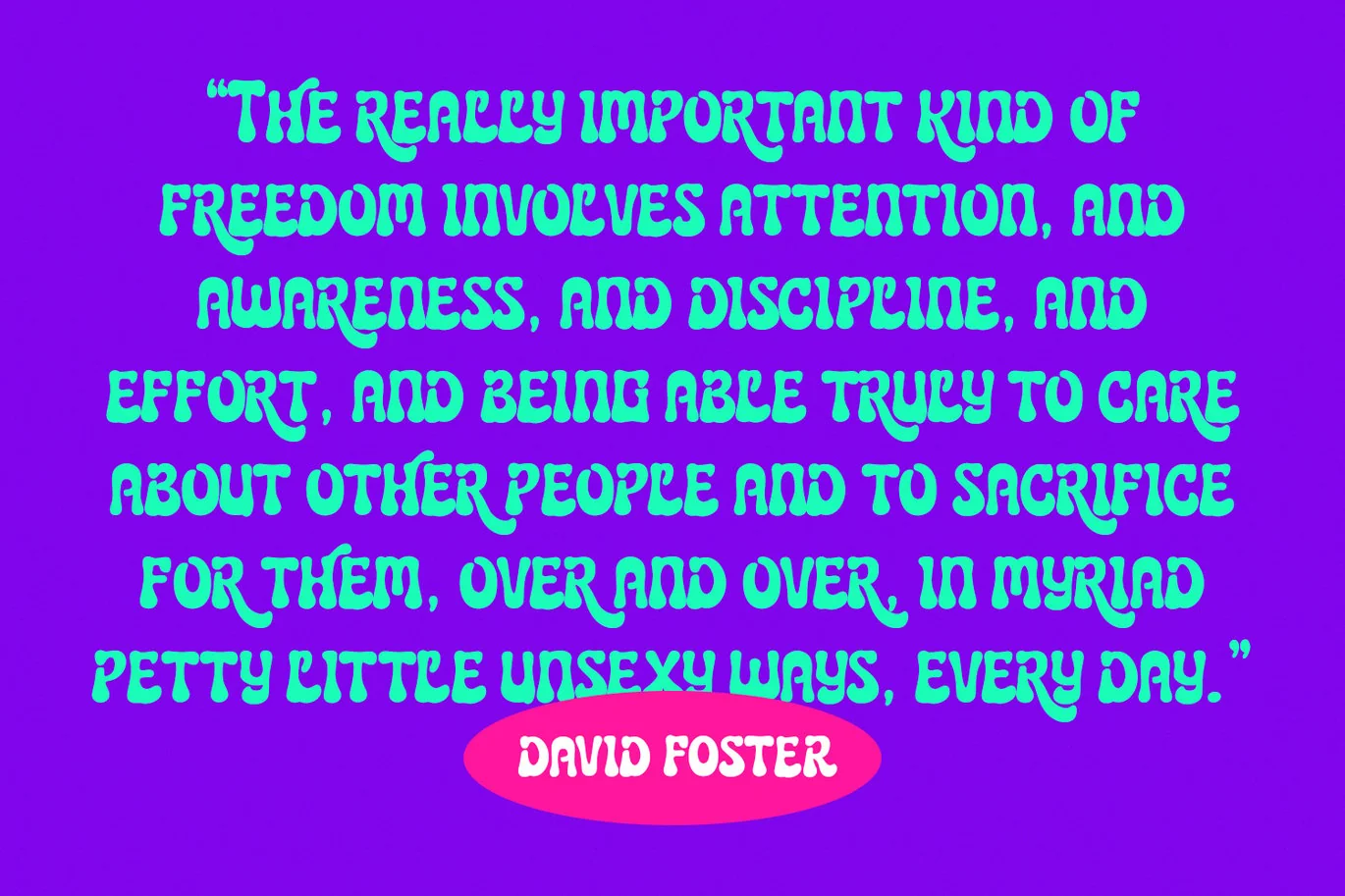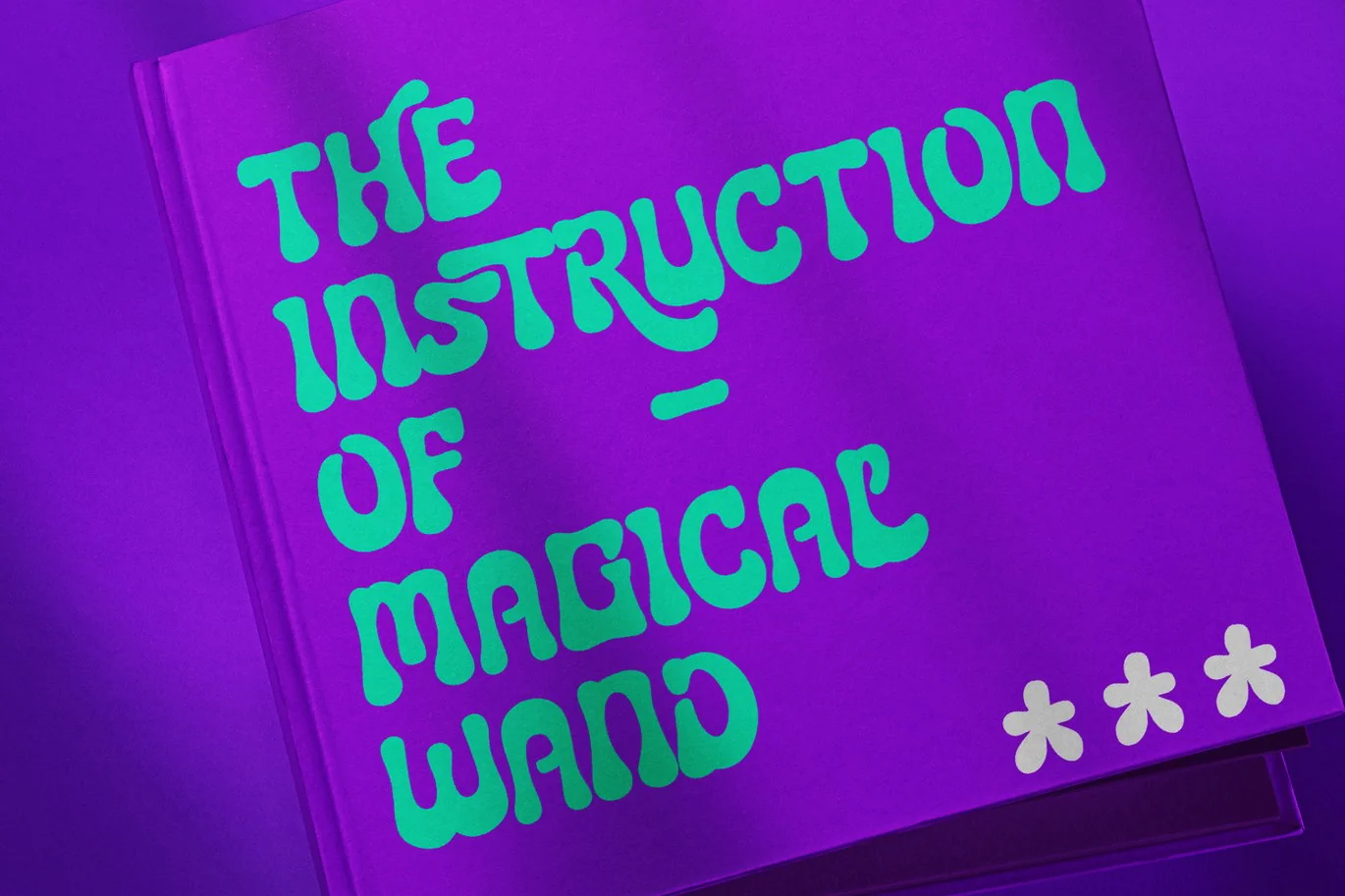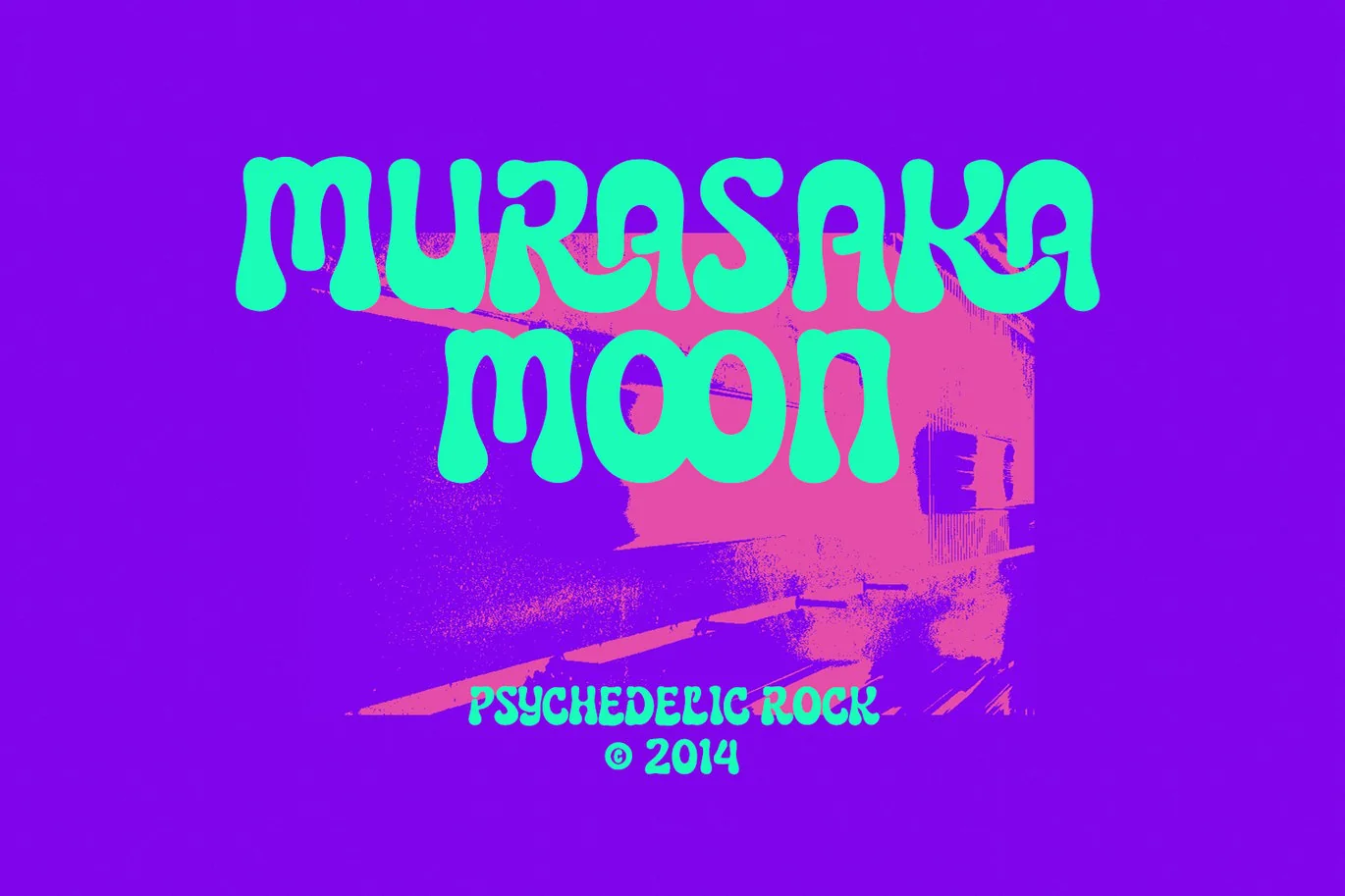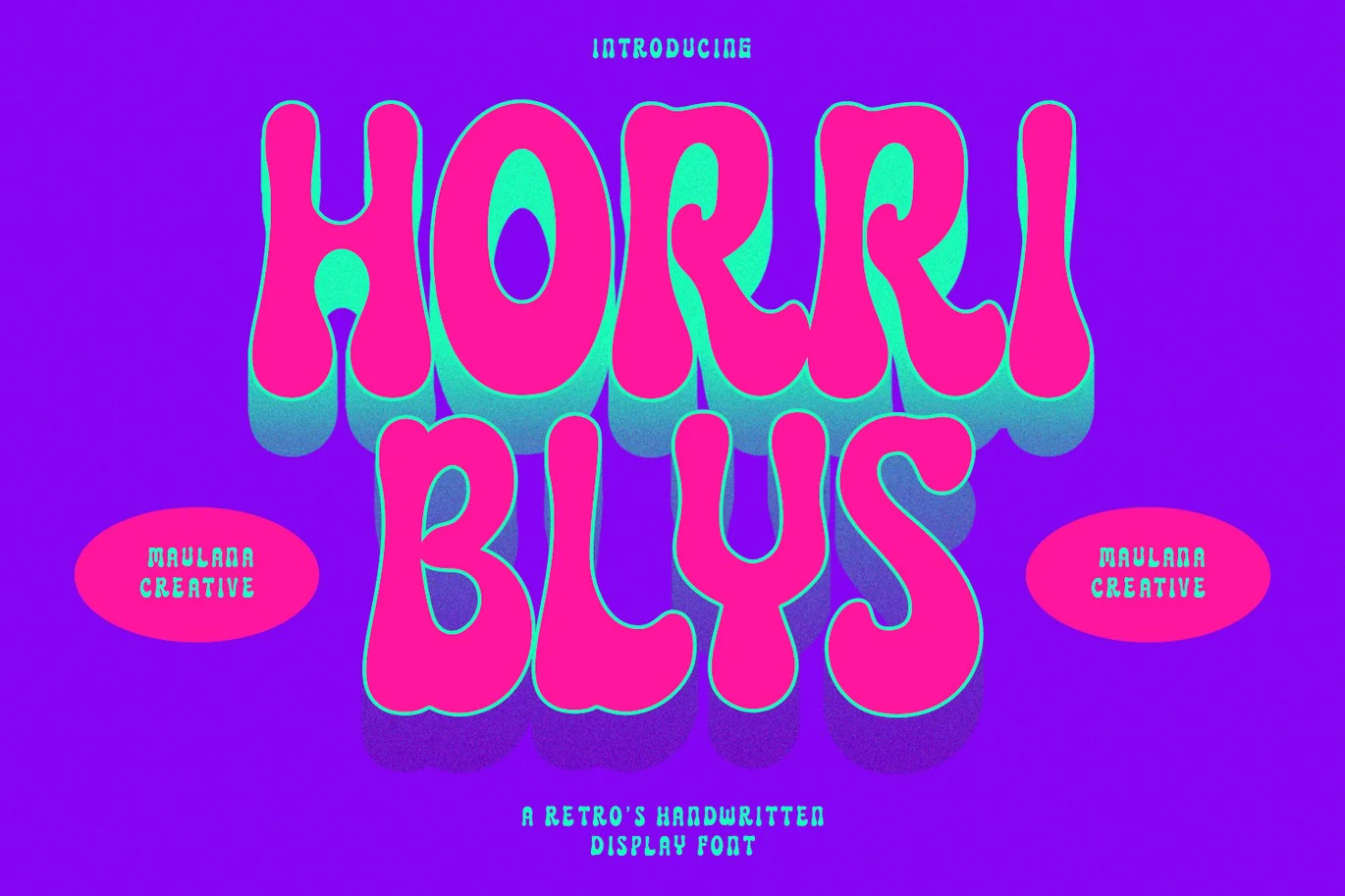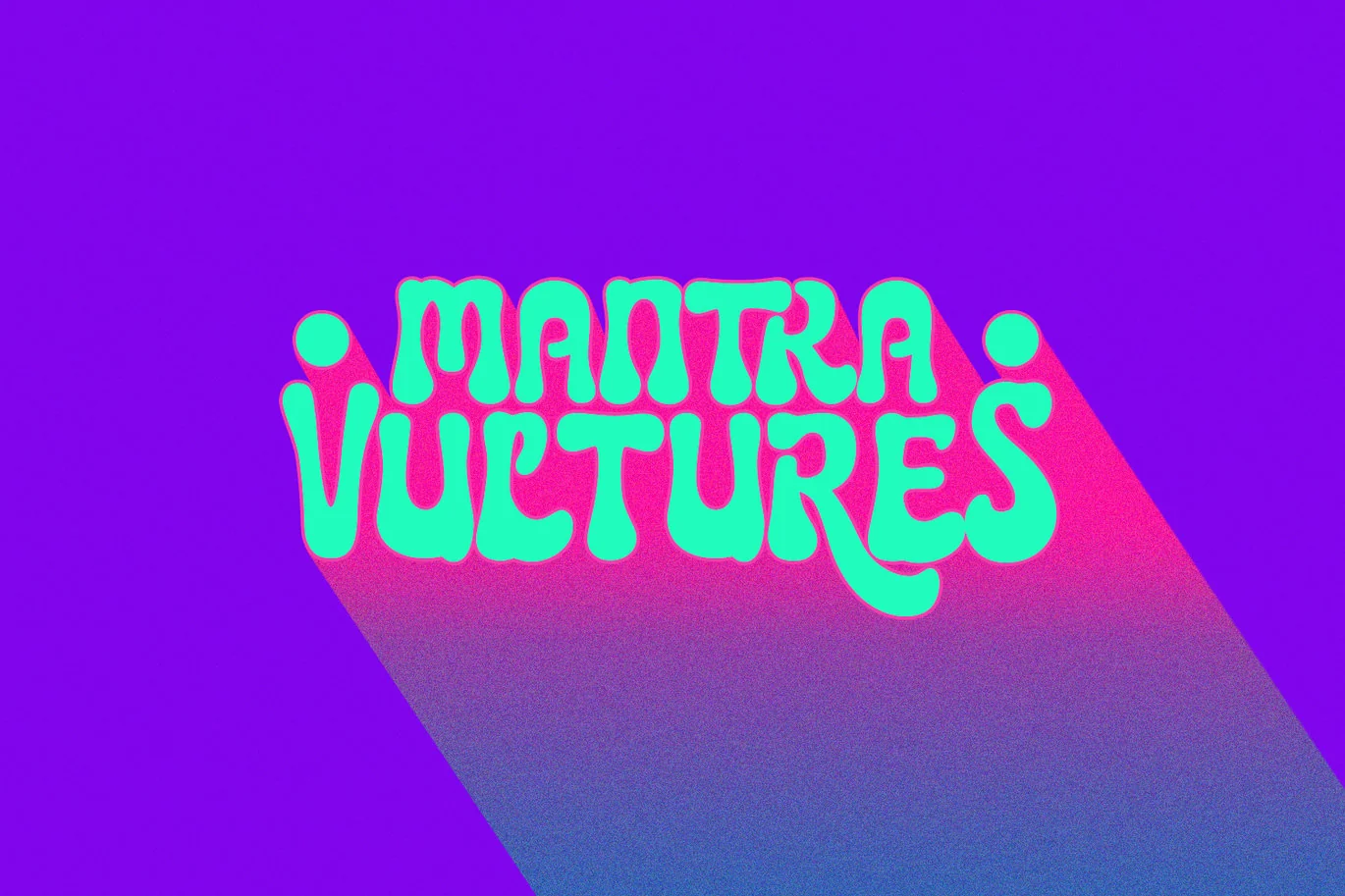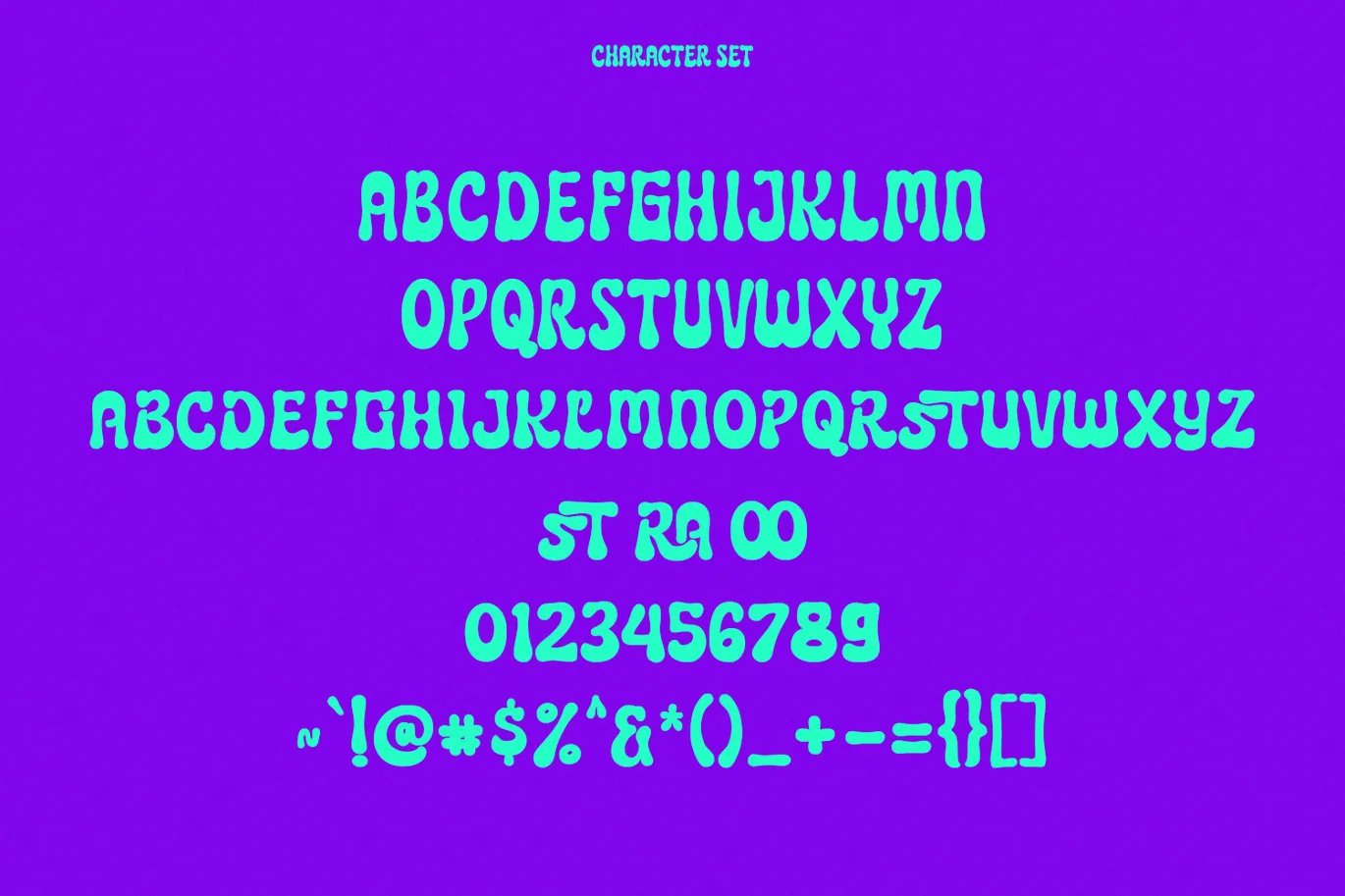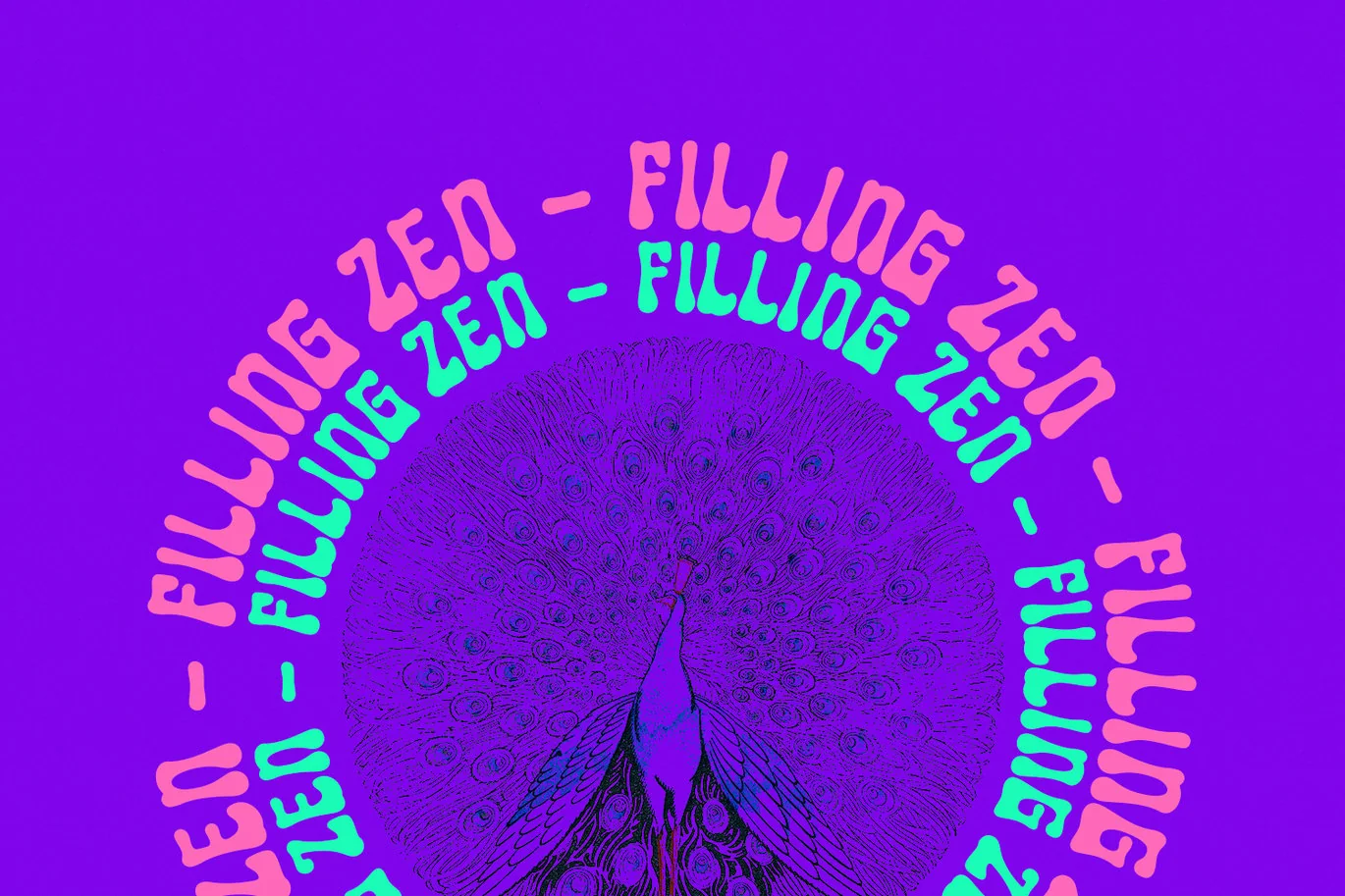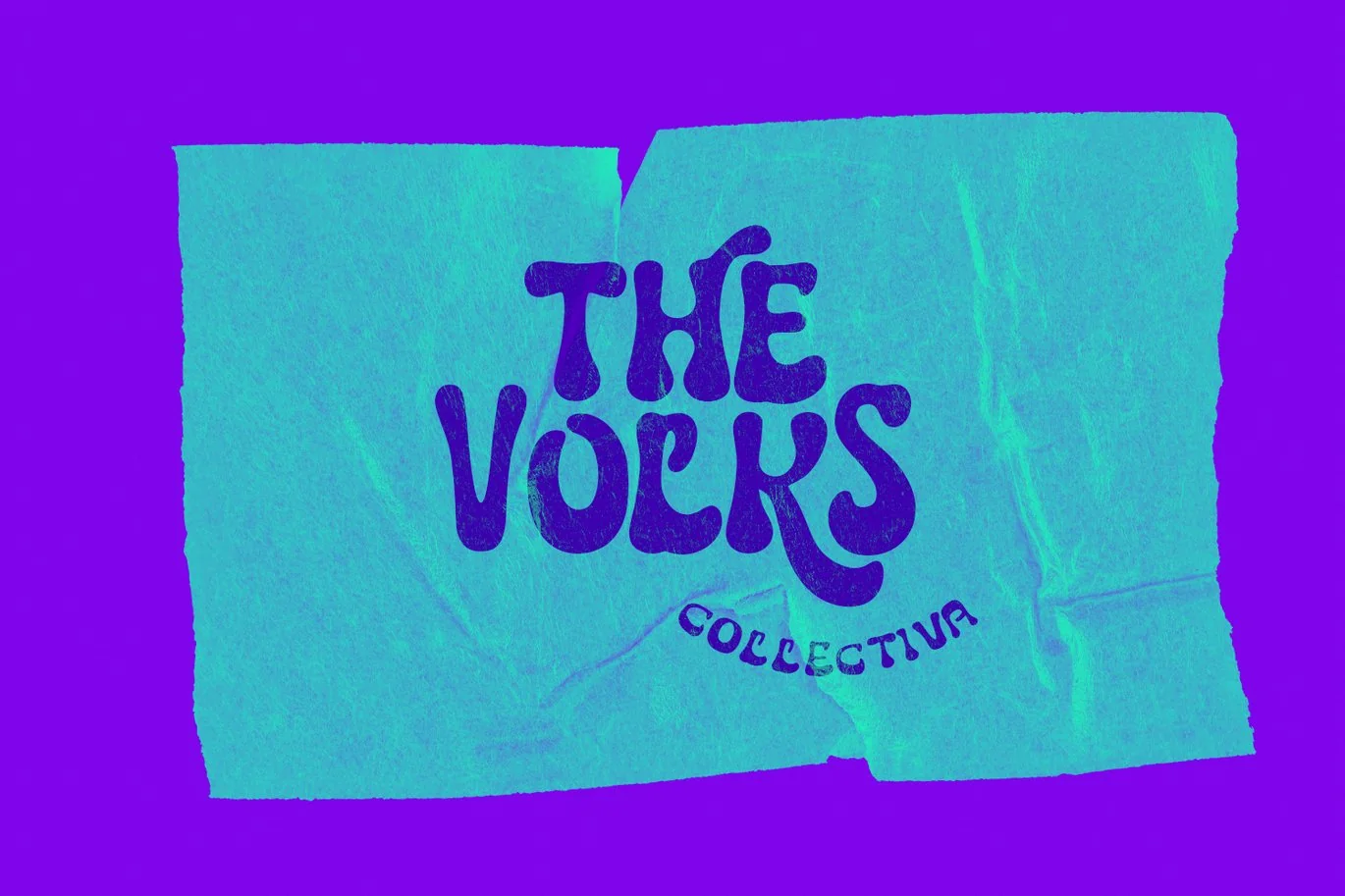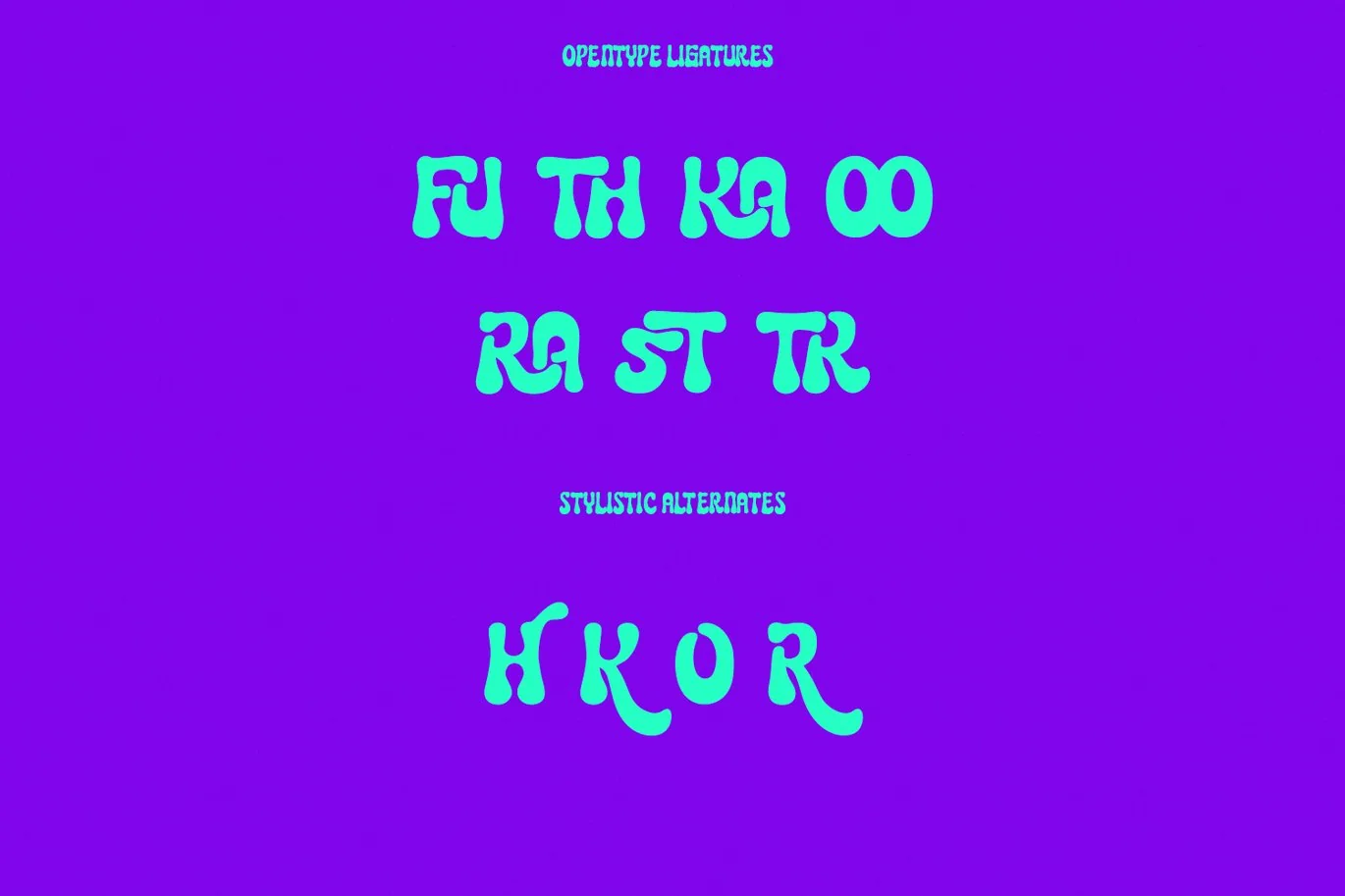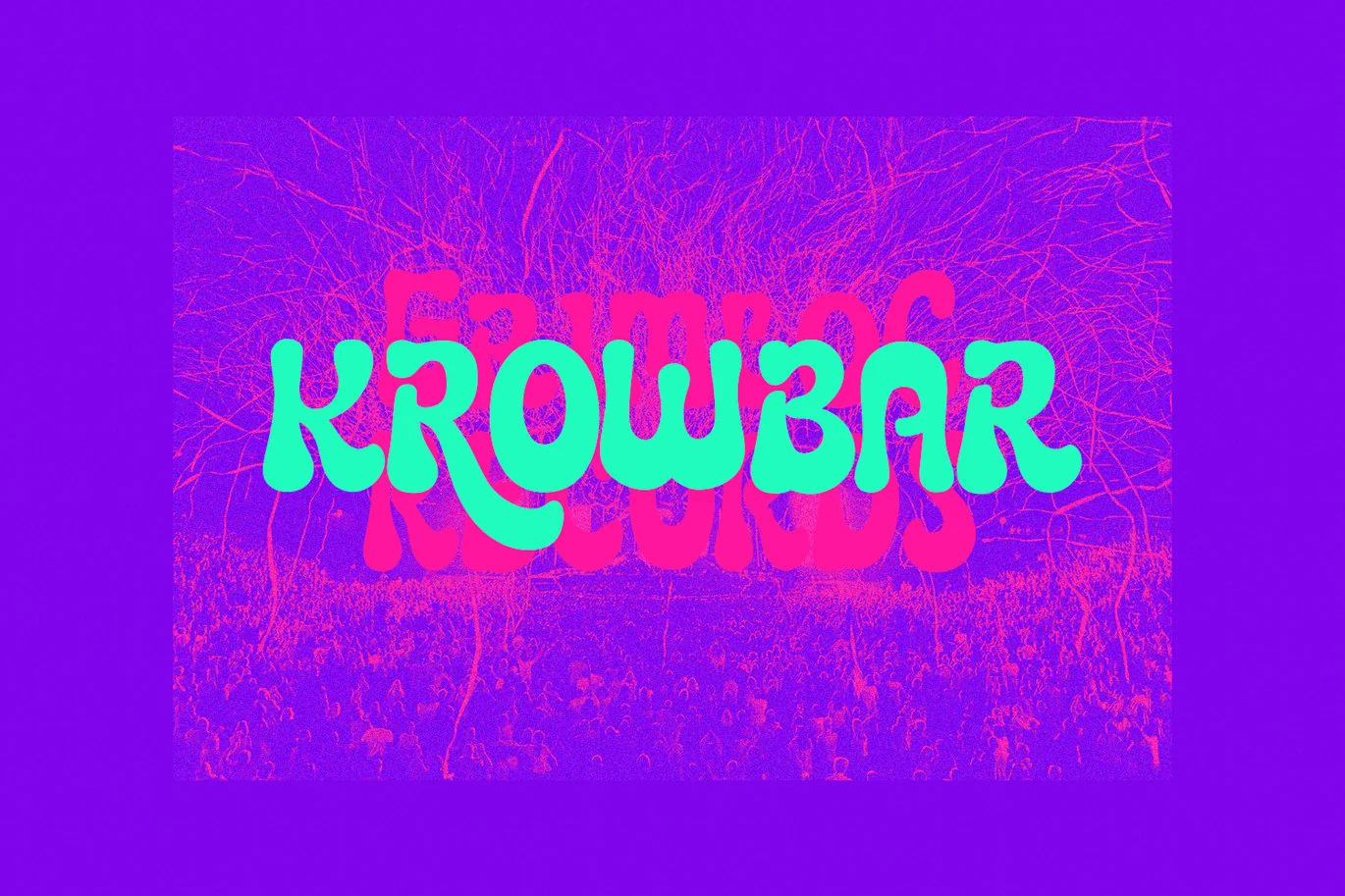
Horriblys Decorative Display Font
Horriblys is a decorative handwritten display font. With bold wavy stroke, fun character with a bit of ligatures and alternates. To give you an extra creative work. Horriblys font support multilingual more than 100+ language. This font is good for logo design, Social media, Movie Titles, Books Titles, a short text even a long text letter and good for your secondary text font with sans or serif. Make a stunning work with Horriblys font.